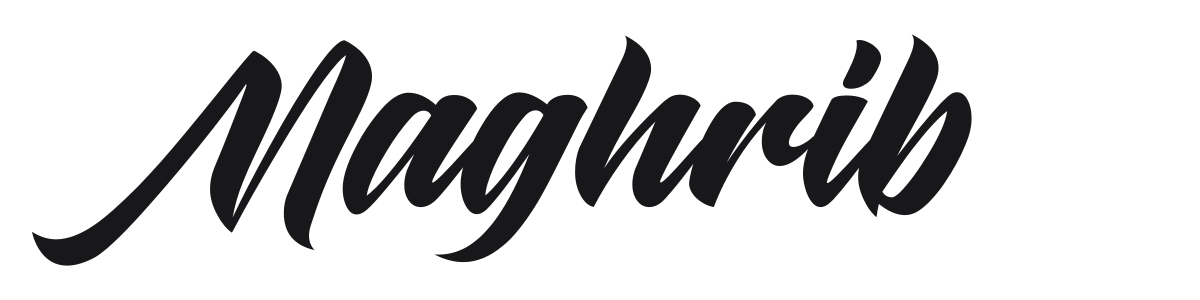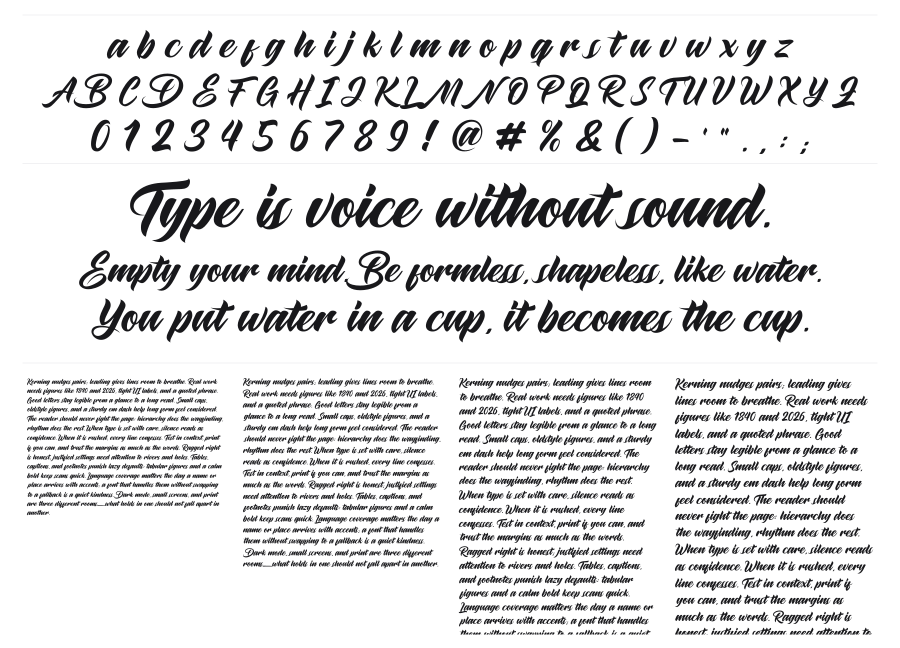
Maghrib
Maghrib is a bold brush script from Ergibi Studio with deep stroke contrast and the kind of fluid energy that comes from real brush lettering. Thick downstrokes taper into fine hairlines with natural ink-like irregularity along every curve. It carries the confident, handcrafted feel of mid-century American lettering with a contemporary weight.